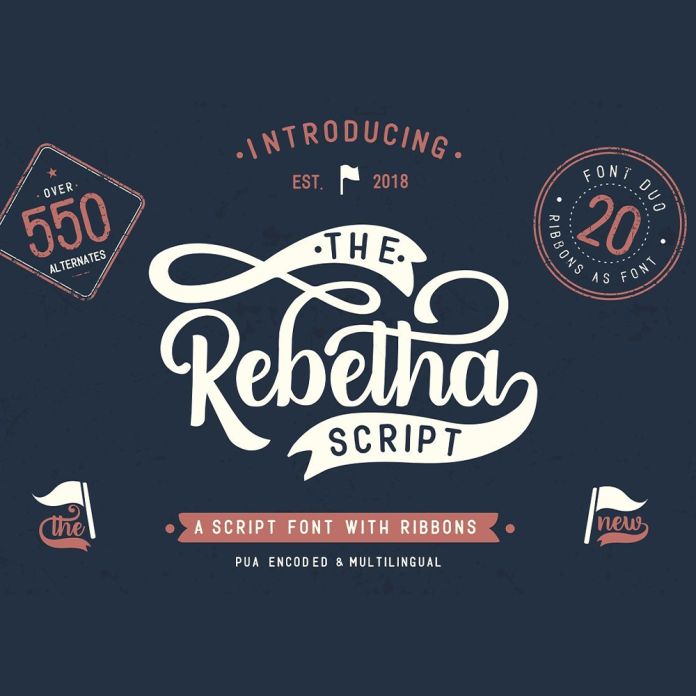
Rebetha is a beautifully designed font duo that blends elegance and versatility in one powerful package. It includes a flowing script font, a clean sans serif, and a bonus font filled with 20 ribbon banners and 20 ornamental graphics—all available in both font and vector formats.
With over 550 alternate glyphs, Rebetha lets you explore endless design possibilities.
Each lowercase letter features between 16 and 25 alternates, while uppercase characters come with at least one stylistic variation—making it easy to mix, match, and create unique, layered compositions.
The included ribbons and ornaments can be accessed via the Ornaments font —perfect for logos, shirts, mugs, posters, wedding invites, signage, and quotes.